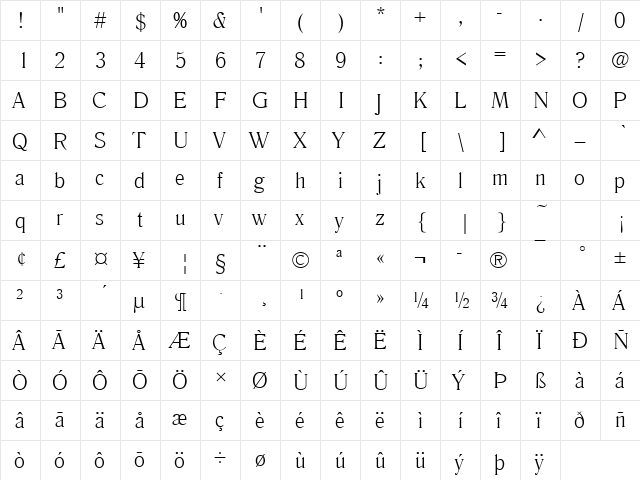
RomanaTLig Regular
Design Context for RomanaTLig Typeface
RomanaTLig offers clean, dependable letterforms without strong stylistic allegiance, making it a practical choice for designers who need flexibility.